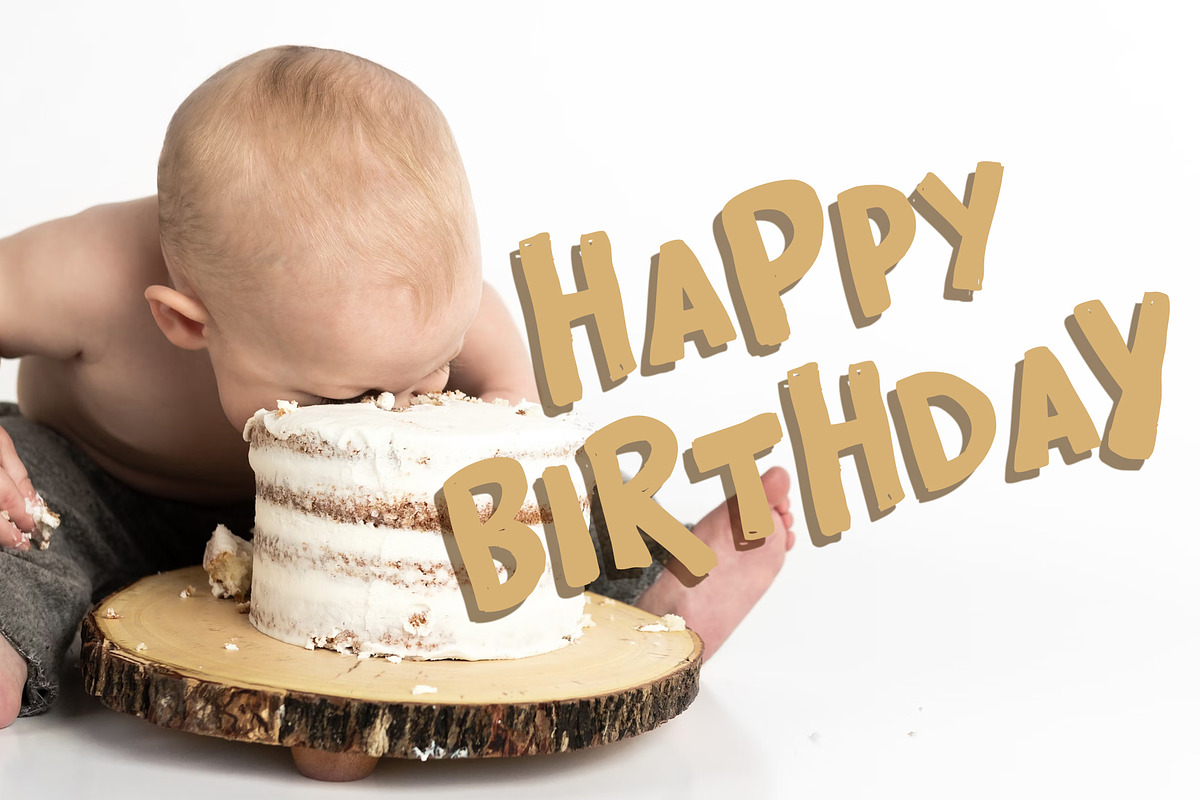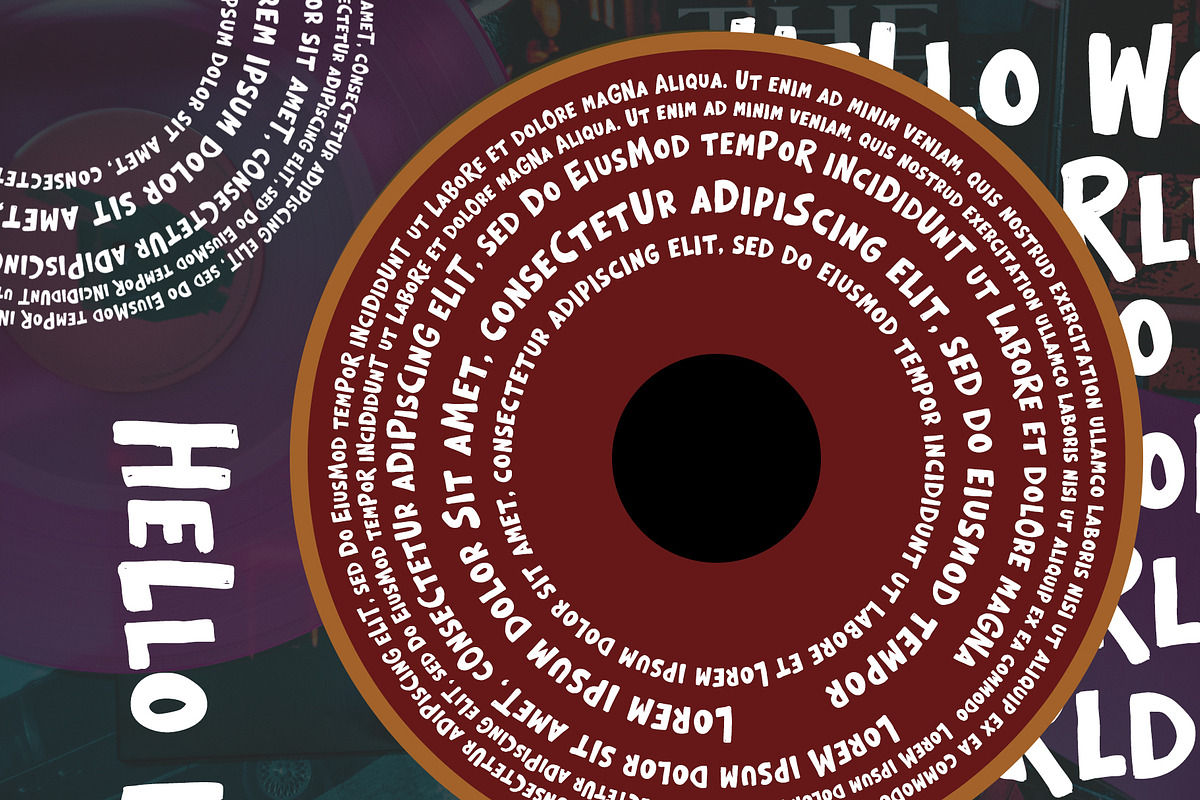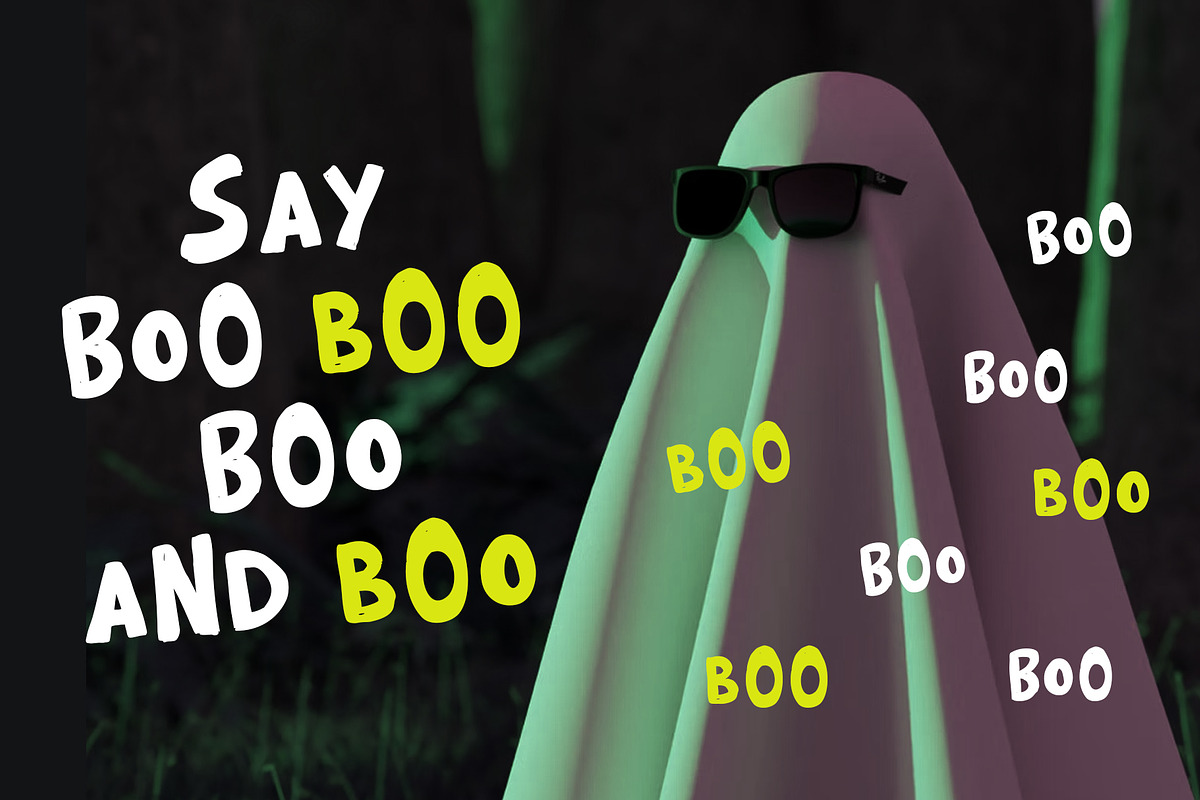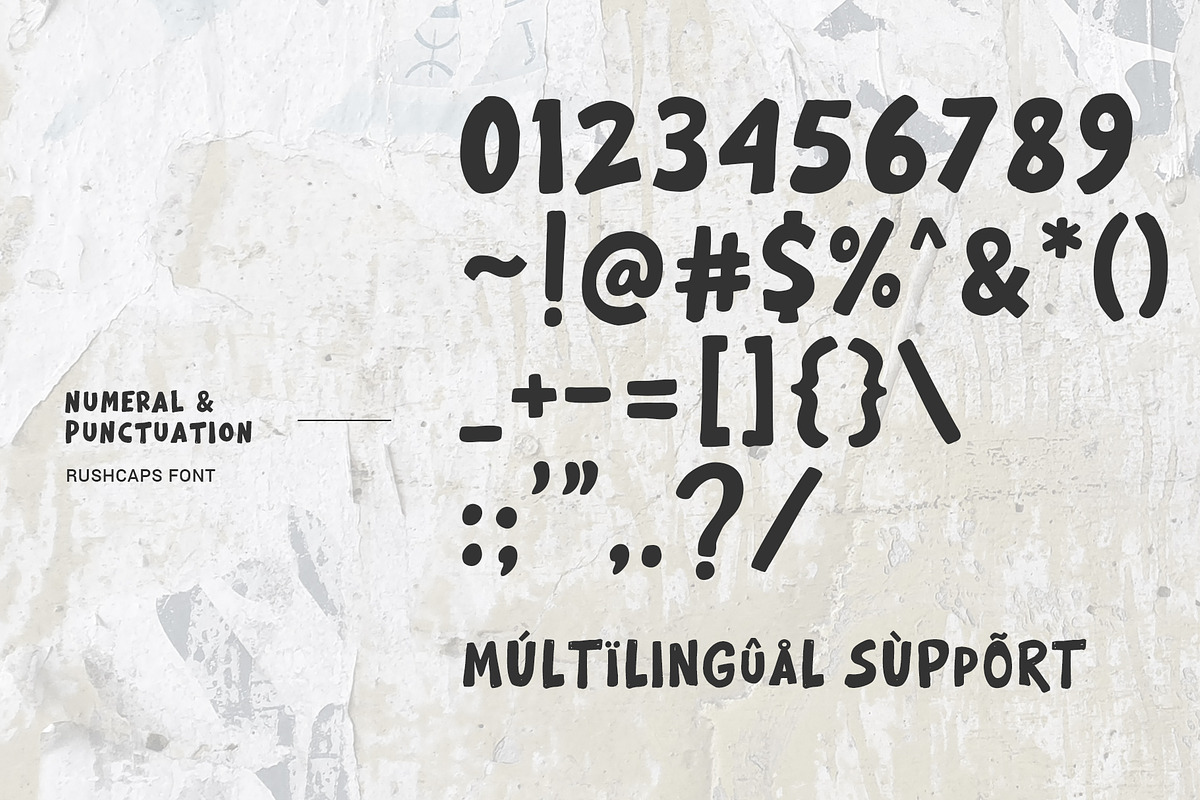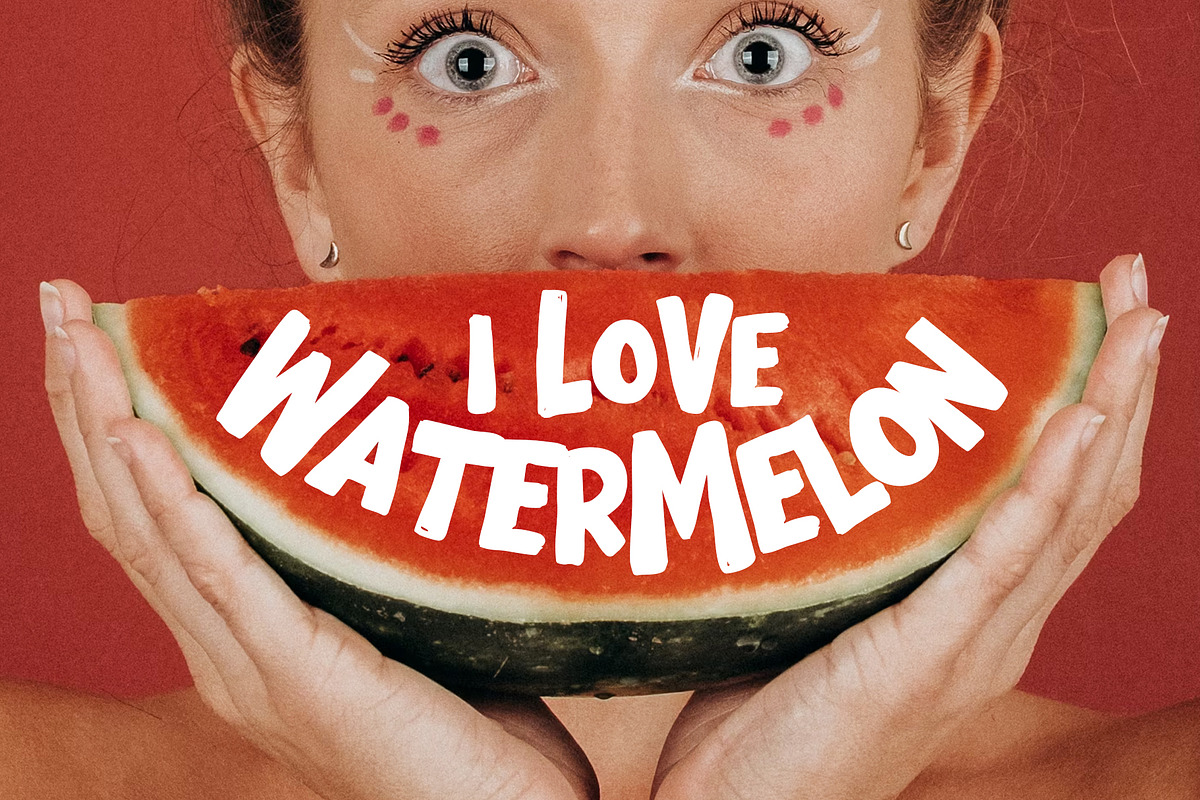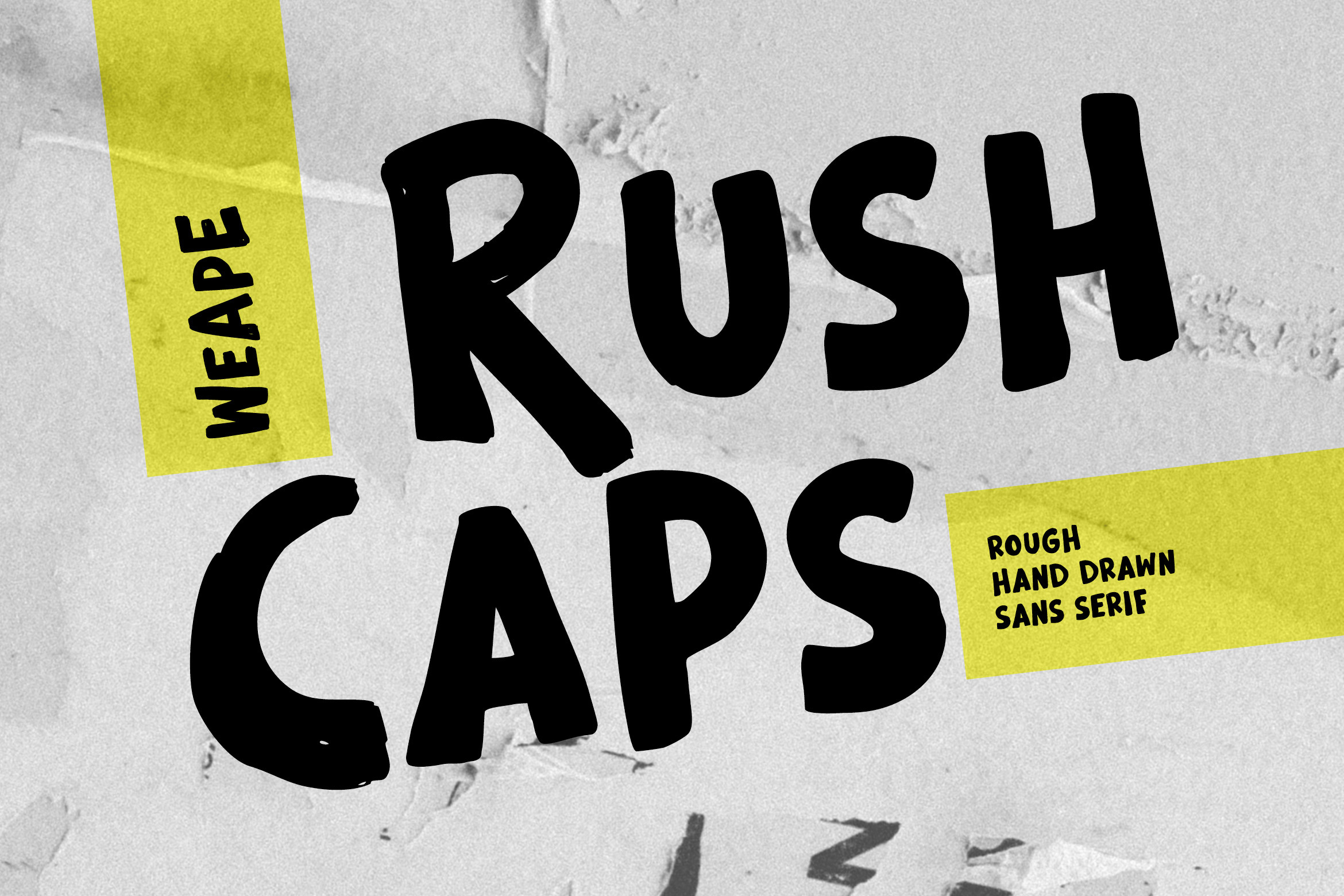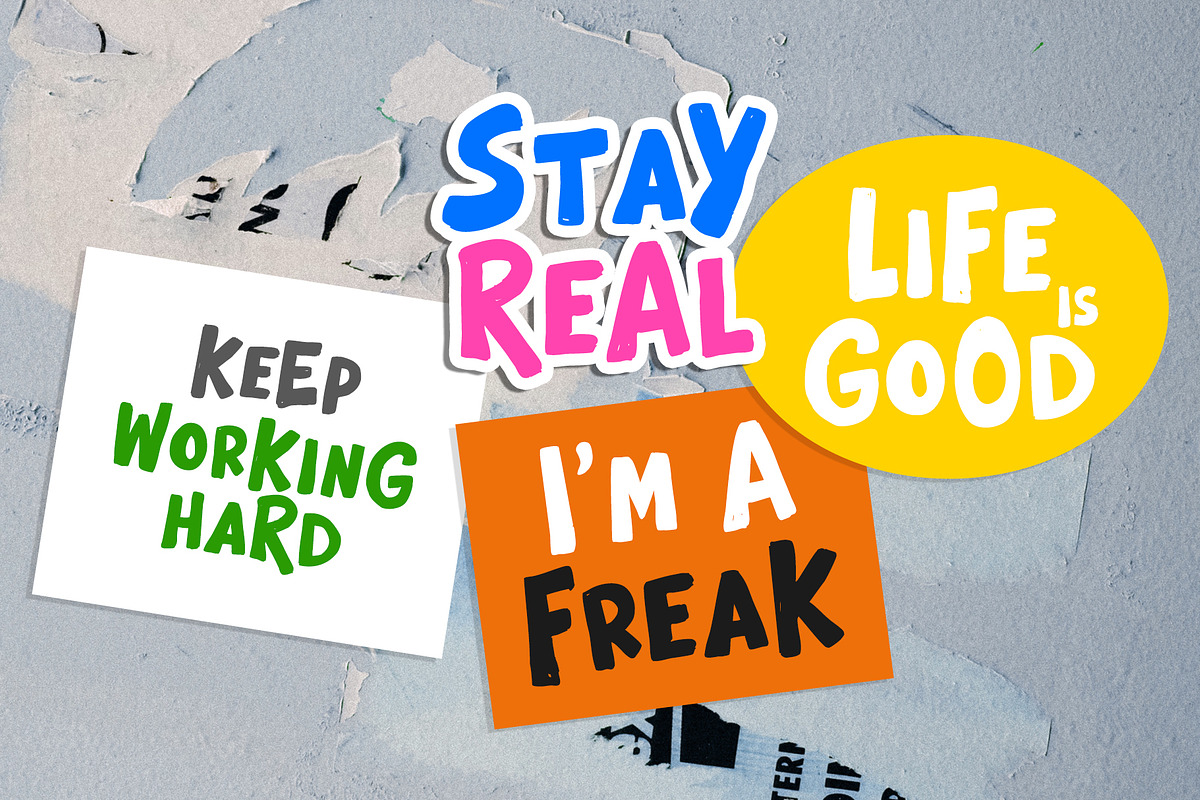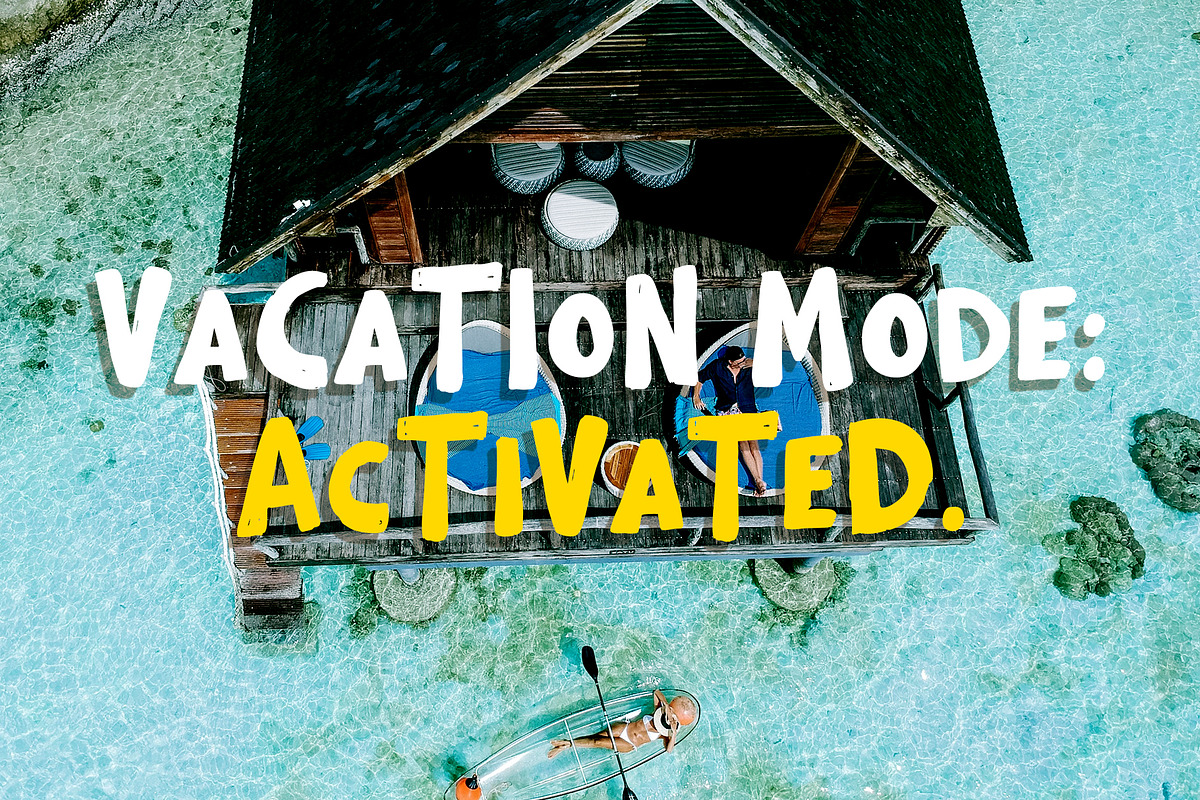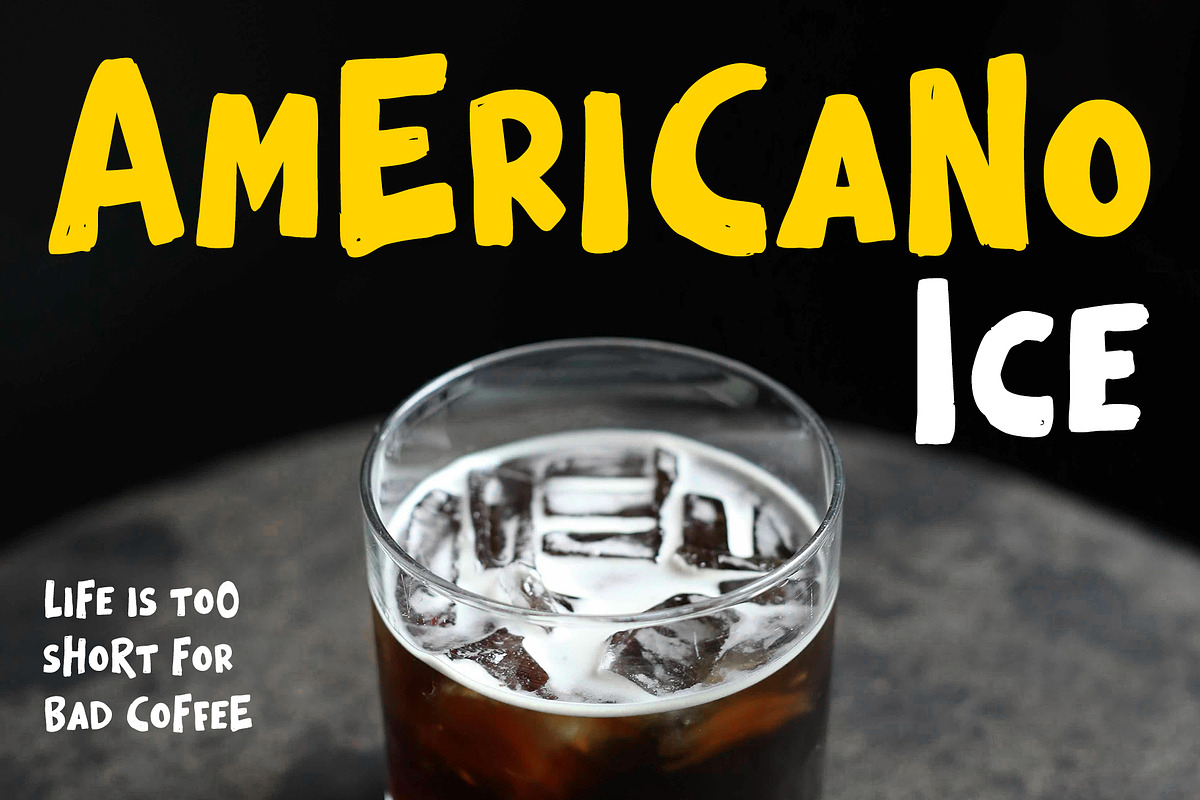
Rushcaps – Bold All Caps Marker Font
Rushcaps is a bold, hand-drawn all-caps font with a rough marker feel. Designed to stand out, this font features uppercase letters in both cases—making your message loud, fast, and full of personality. Perfect for headlines, posters, streetwear, and edgy branding.
Both uppercase and lowercase characters use capital letters, allowing you to mix sizes while maintaining a bold and consistent marker font look. Whether you're designing for music flyers, sticker designs, or album covers, Rushcaps brings the punch and personality you need.
All uppercase characters (uppercase & lowercase mapped to caps)
Bold, thick strokes with a raw hand-drawn finish
Perfect for poster titles, branding, stickers, and merchandise